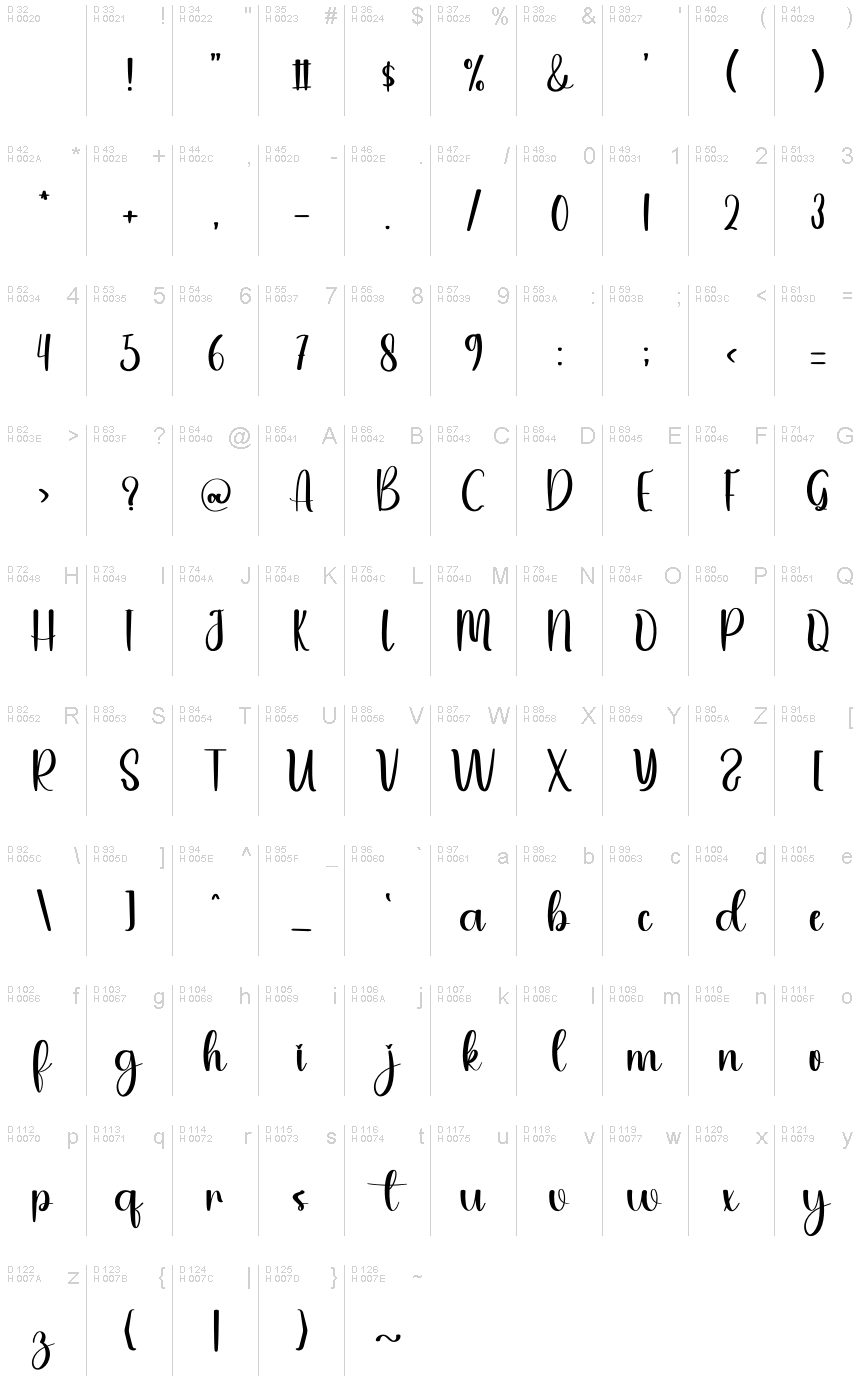
Simple Thich
Simple Thich, from the creative minds at PiPi Creative, offers an artistic blend of casual charm and readability. This semi-light handwritten font exudes a personal touch that adds warmth and authenticity to any project. With its smooth curves and subtle variation in stroke weight, Simple Thich strikes a balance between delicate elegance and inviting approachability.
The font's aesthetic is versatile enough to enhance everything from heartfelt invitations to quirky social media graphics. Its legible yet playful character ensures that messages are not just seen but felt, making Simple Thich an excellent choice for designers seeking to convey intimacy and personality in their work. Whether you're crafting a logo, penning a blog title, or designing bespoke stationery, Simple Thich infuses a dash of human touch into the digital world.